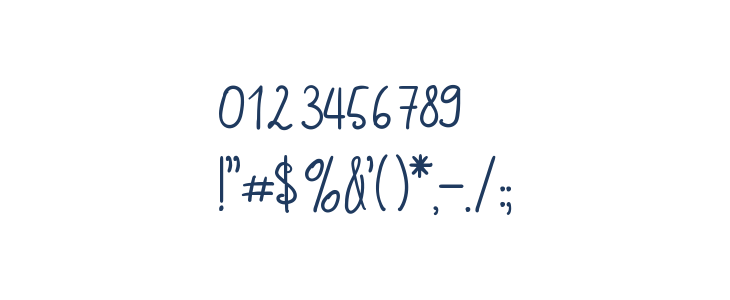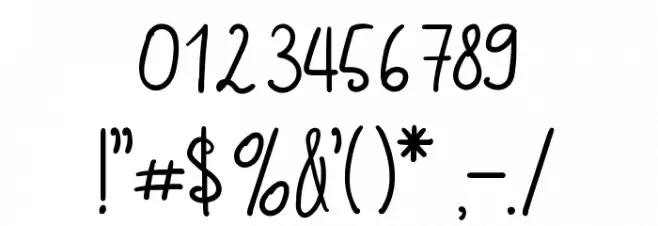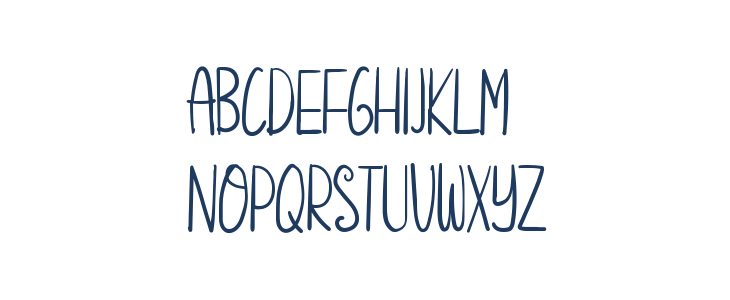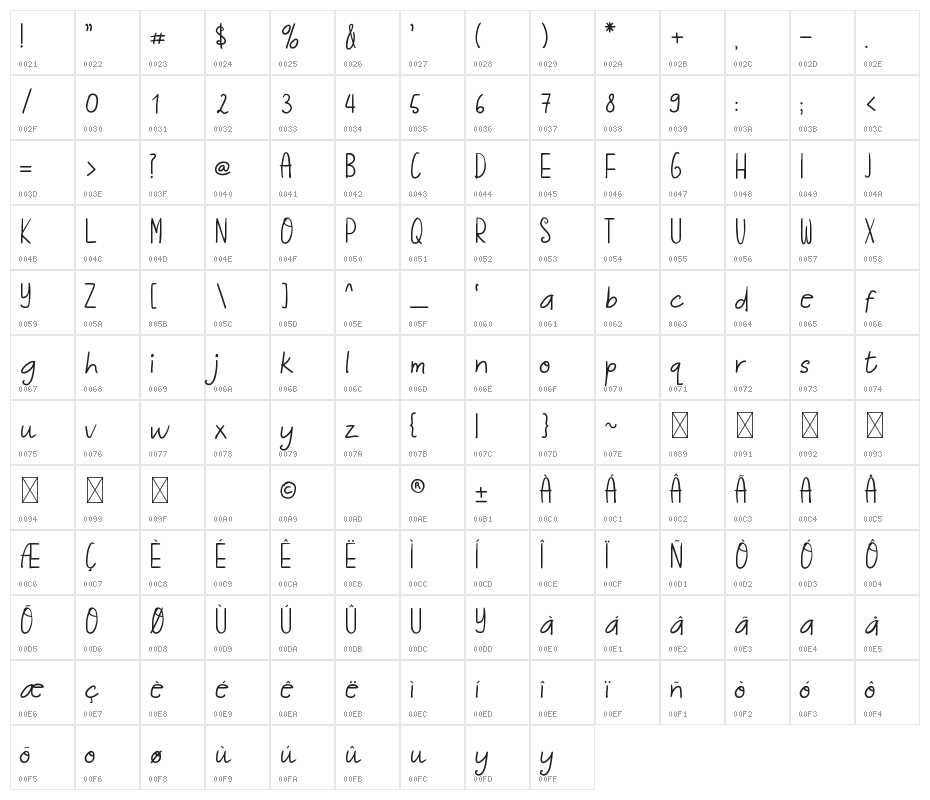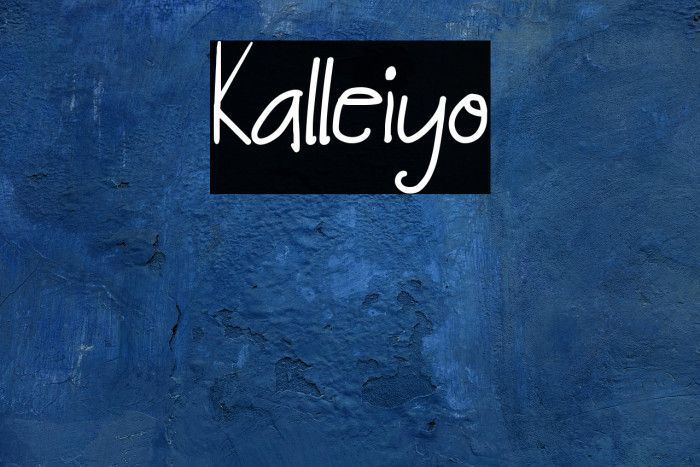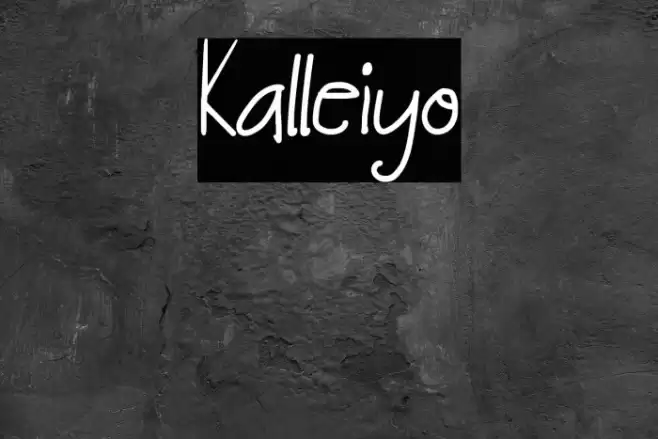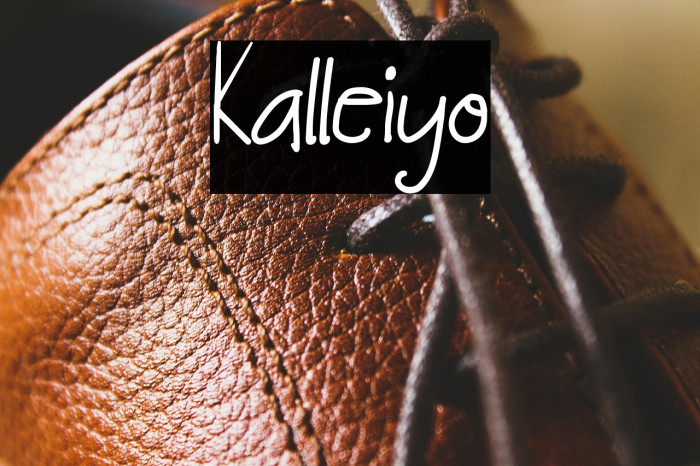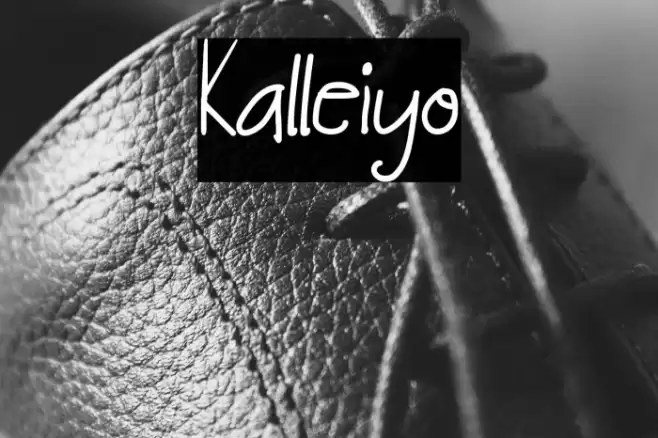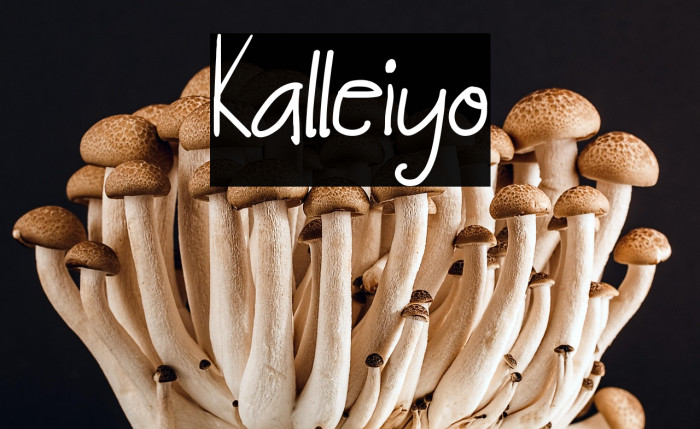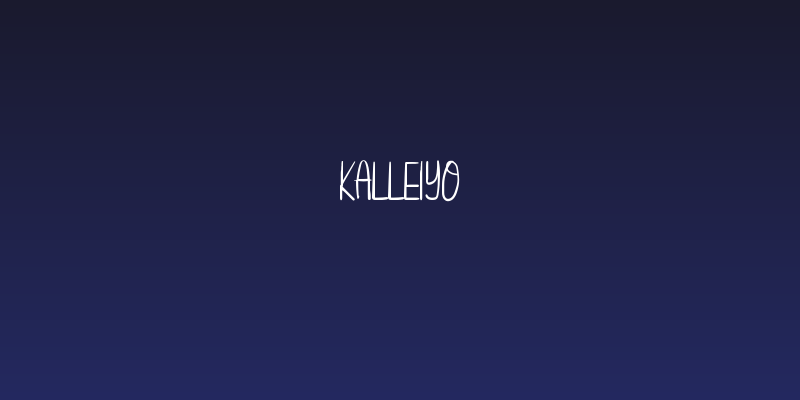
Kalleiyo Font
Kalleiyo Description
A playful, handwritten style font with a casual, whimsical appearance. The uppercase letters are tall and slightly irregular, while the lowercase letters are more fluid and cursive-like. The numerals and symbols match the informal, handwritten aesthetic.
| Overall Style | Casual, Playful, Handwritten |
| Use Case | Headlines, Body text, Invitations, Creative projects |